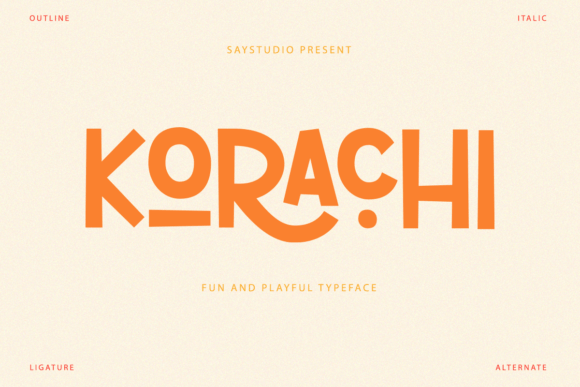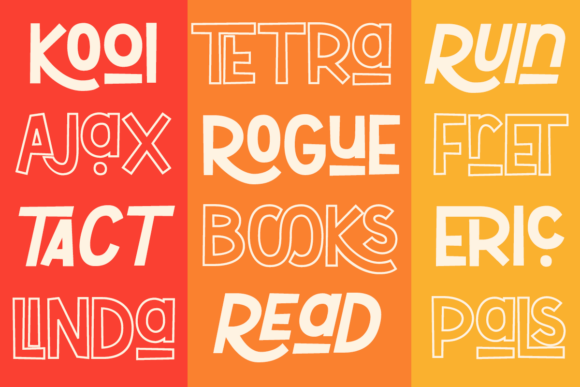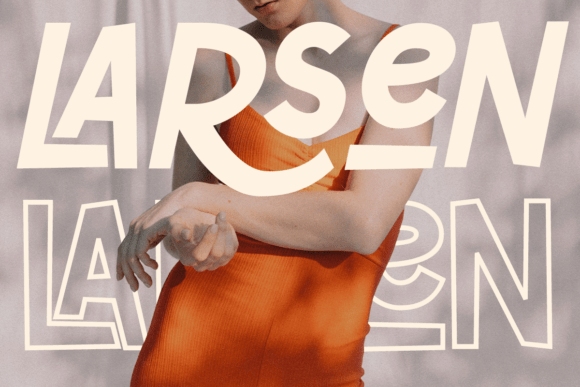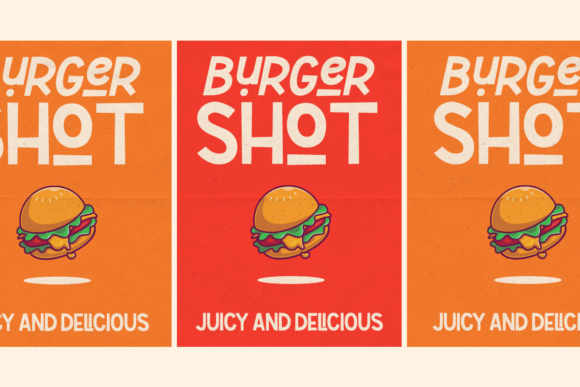
Korachi Font: A Playful & Cute Display Font for Branding & DIY
About the Korachi Font
We are excited to introduce Korachi Font, a must-have typeface for any serious designer. Introducing Korachi – the ultimate font for designers seeking a playful and cheerful touch! With plenty of ligatures and stylistic alternatives. Perfect for creating logos, greeting cards, posters, packaging, and so much more! Its charming and warm character will help you give your project a truly unique feel.
Designed and kerned with care and love to make using it a breeze.
Korachi’s playful energy makes it ideal for headlines, short text blocks on posters, and branding elements where a cheerful, approachable feel is desired. It excels in packaging design for products targeting younger demographics or those with a lighthearted brand identity. However, its decorative nature makes it less suitable for body text or UI elements requiring high readability.
Consider pairing Korachi with a clean sans-serif like Open Sans for body text to create a balanced design. For a more sophisticated look, a classic serif such as Garamond could complement its playful forms. Avoid pairing it with other highly decorative fonts, which would create visual clutter.
Korachi’s overall personality is best described as friendly and approachable, yet subtly sophisticated thanks to its thoughtful kerning. It suits brands focusing on youth culture, handmade goods, or projects with a whimsical, optimistic tone.
Korachi Font Usage Examples
Korachi Font Example